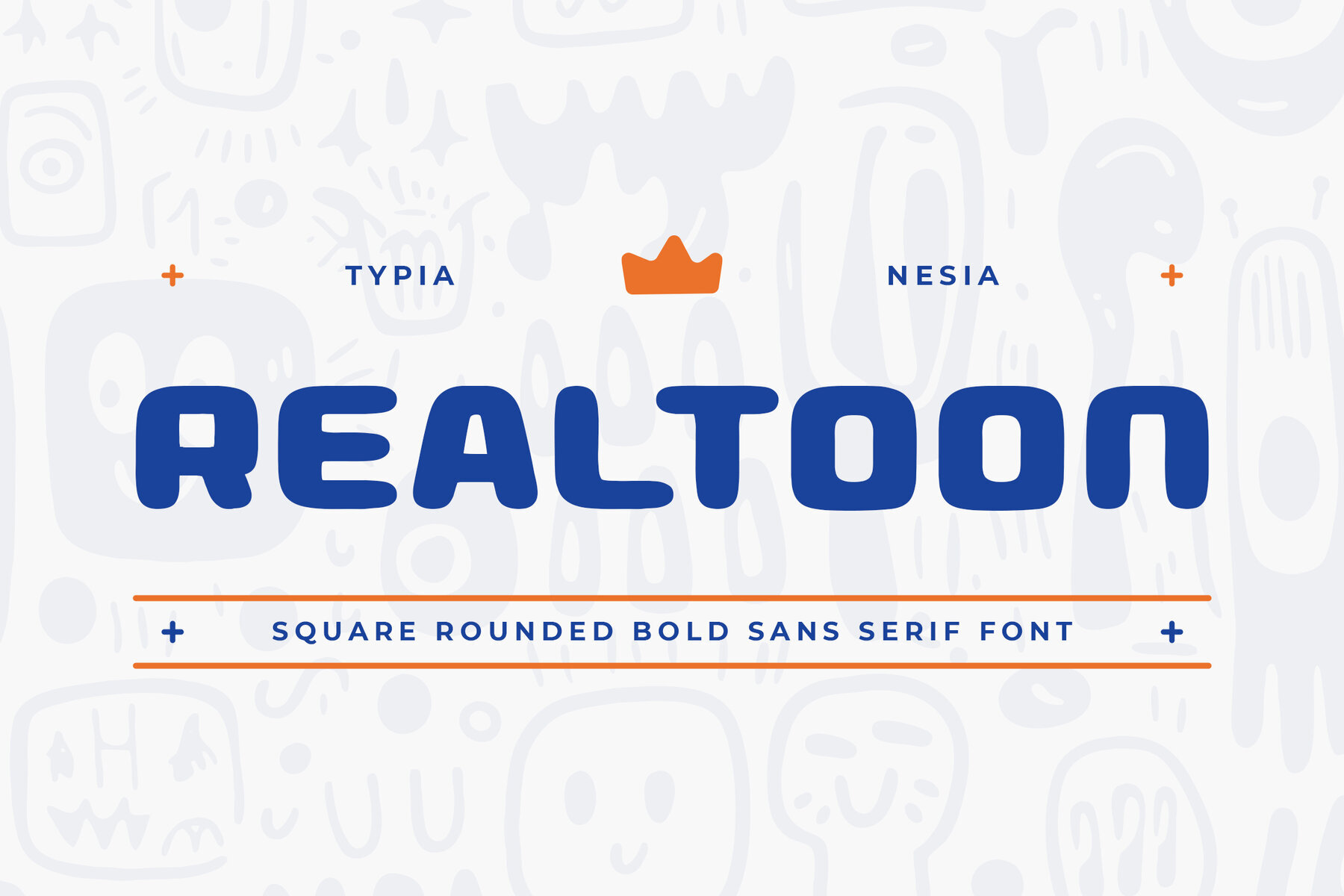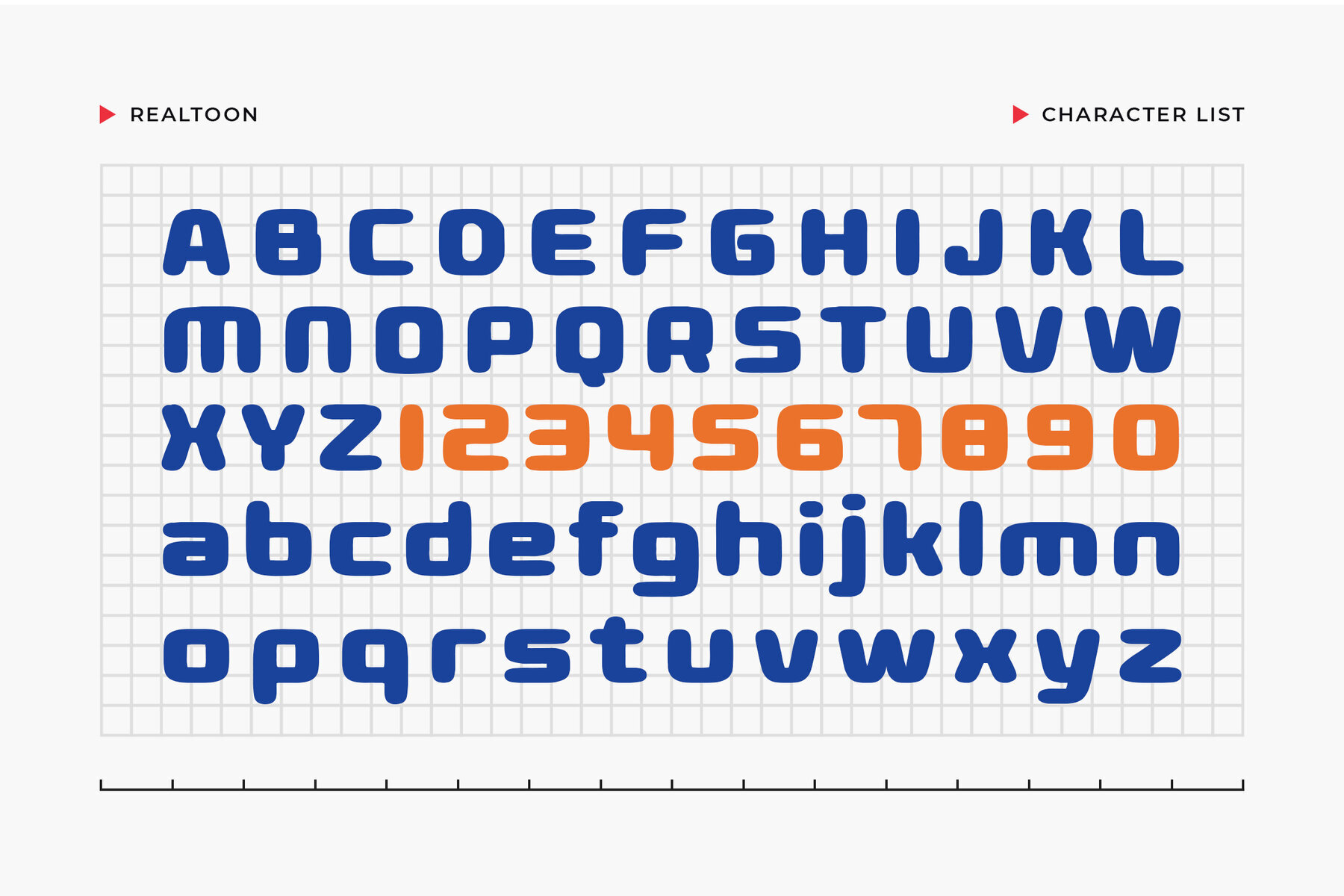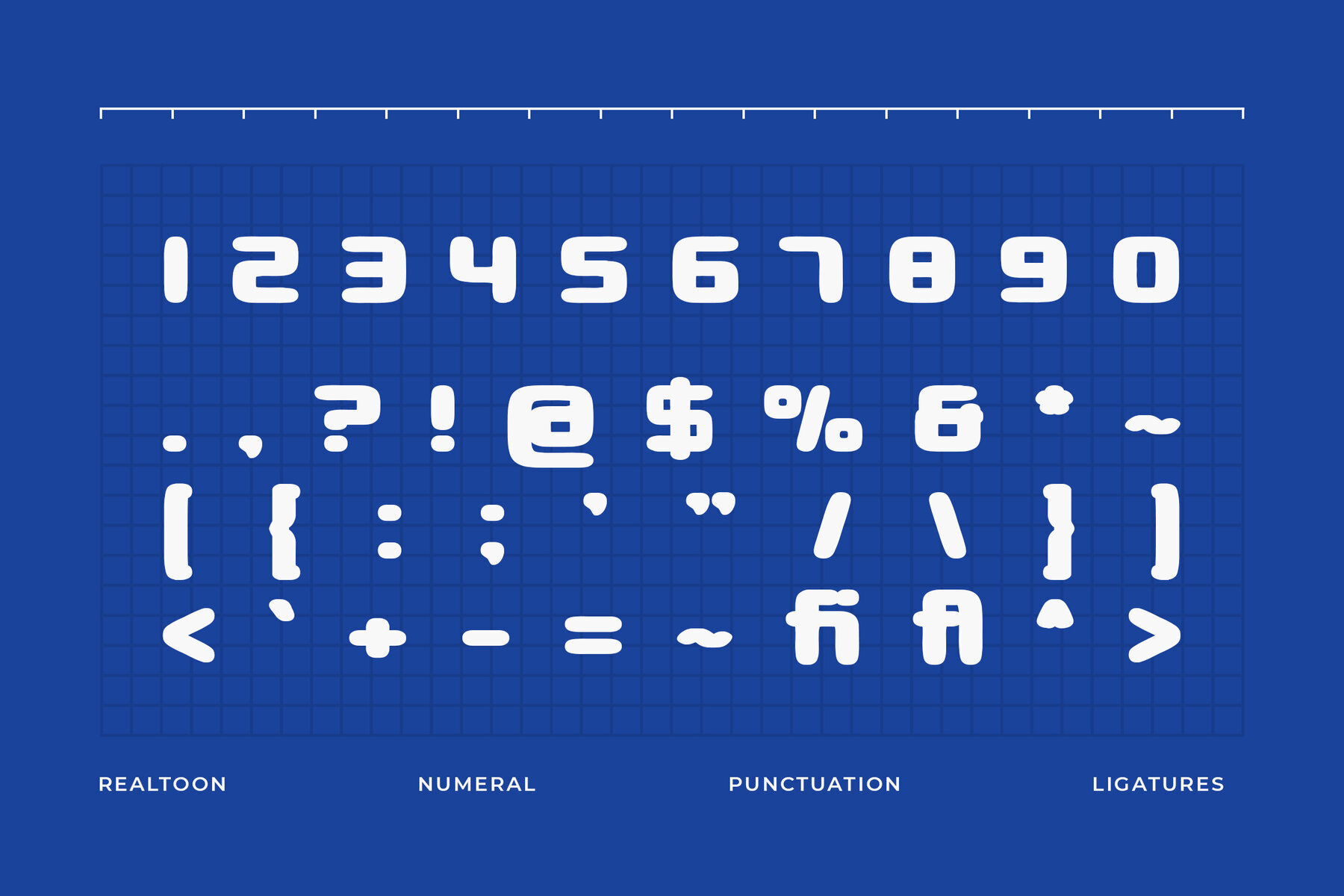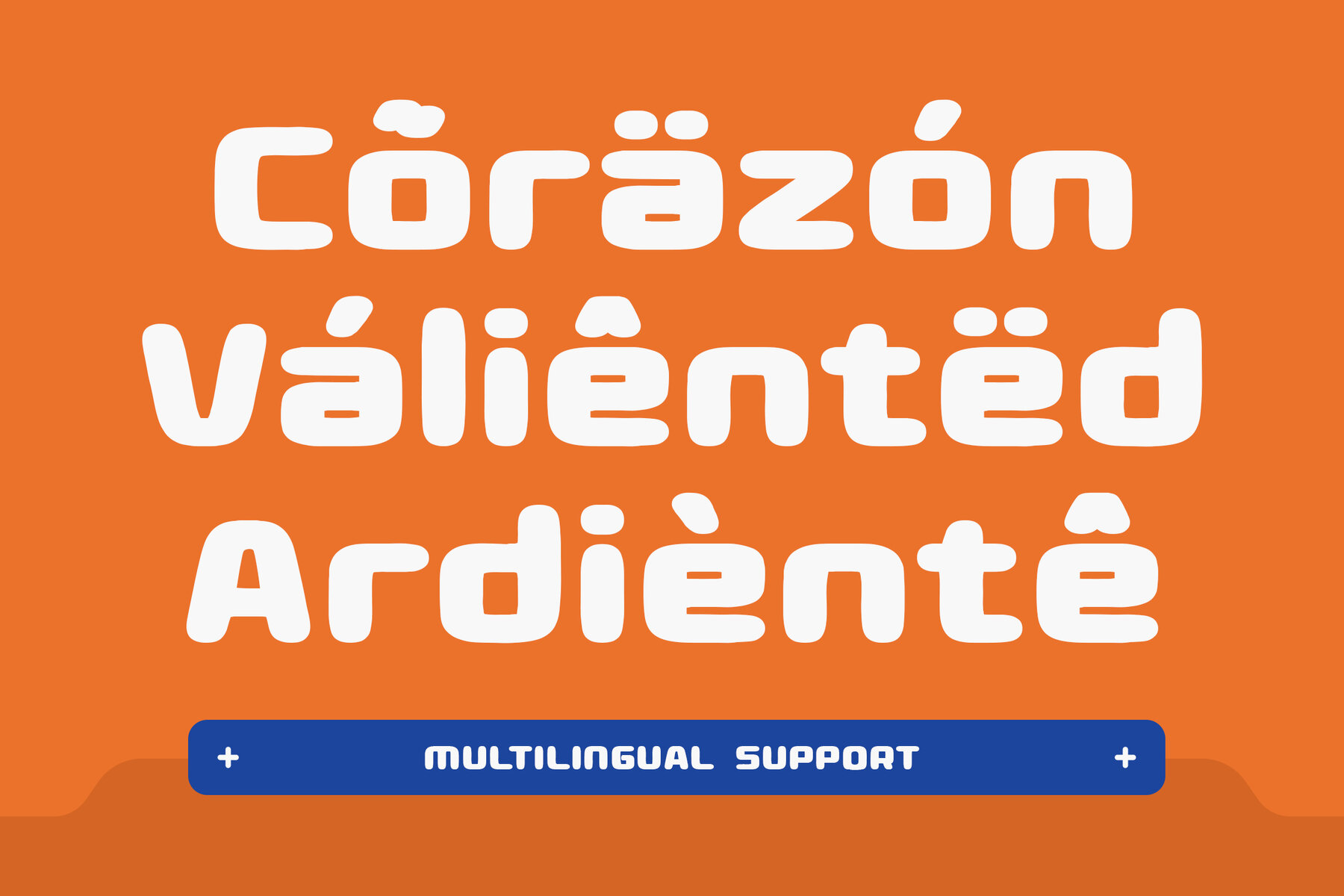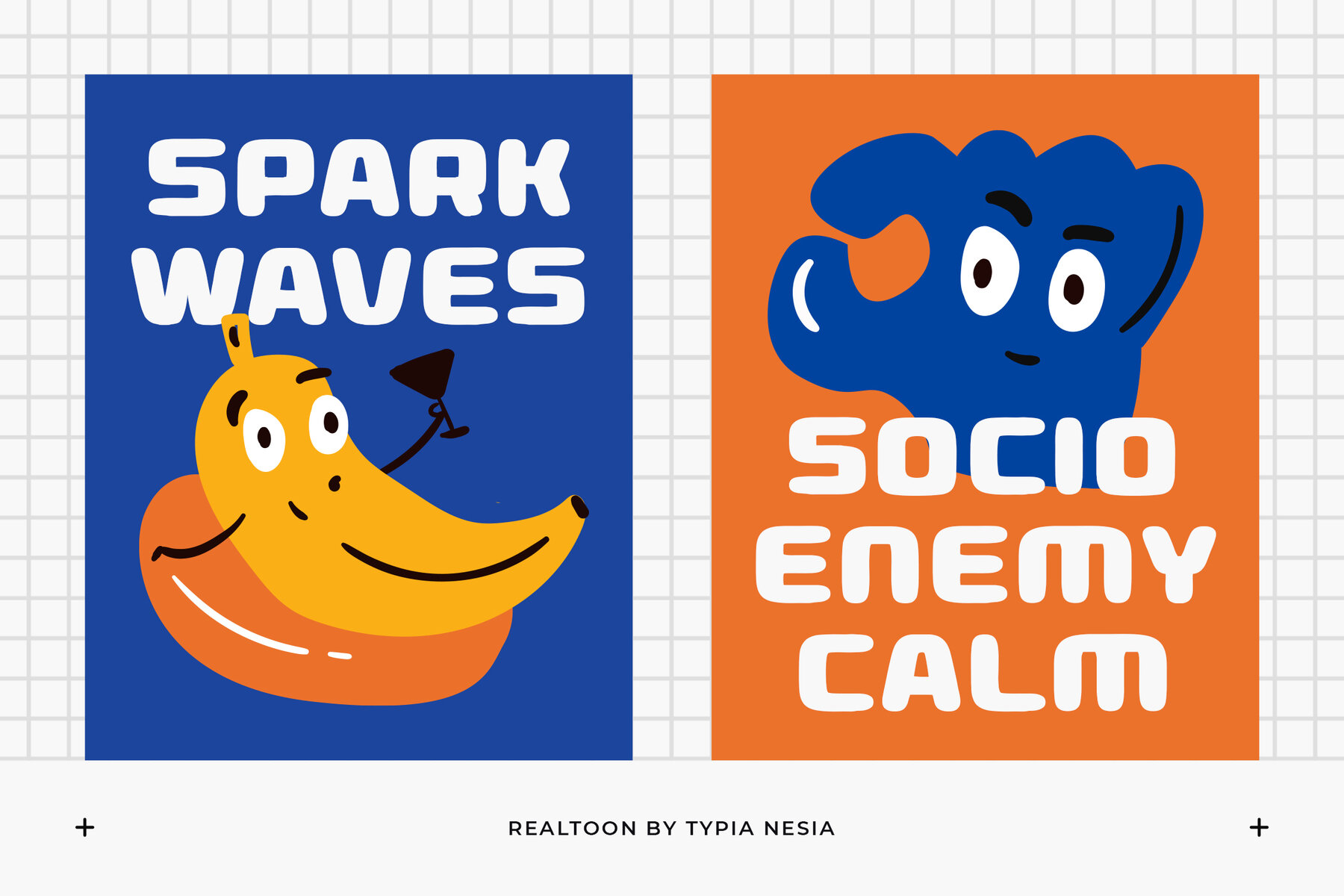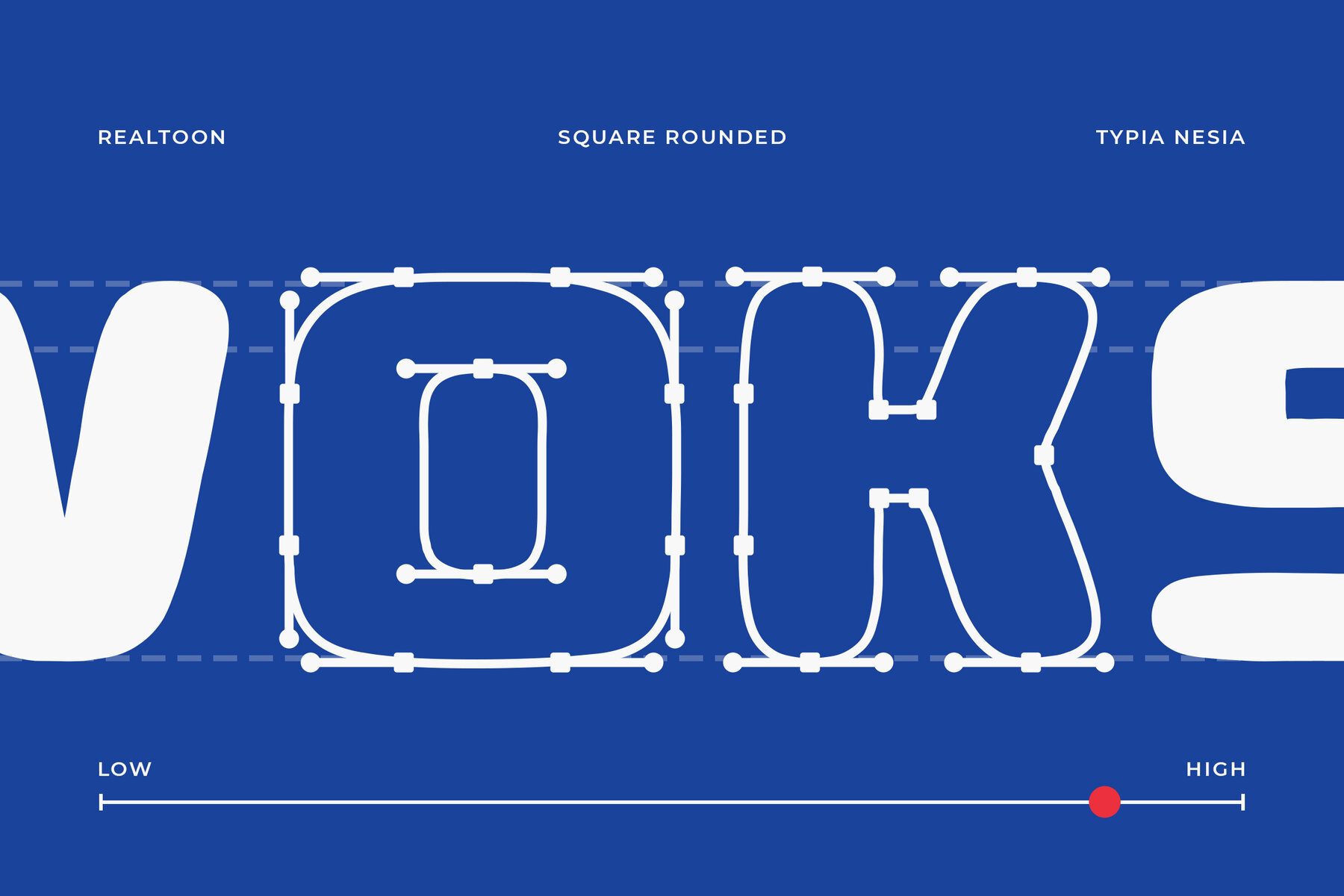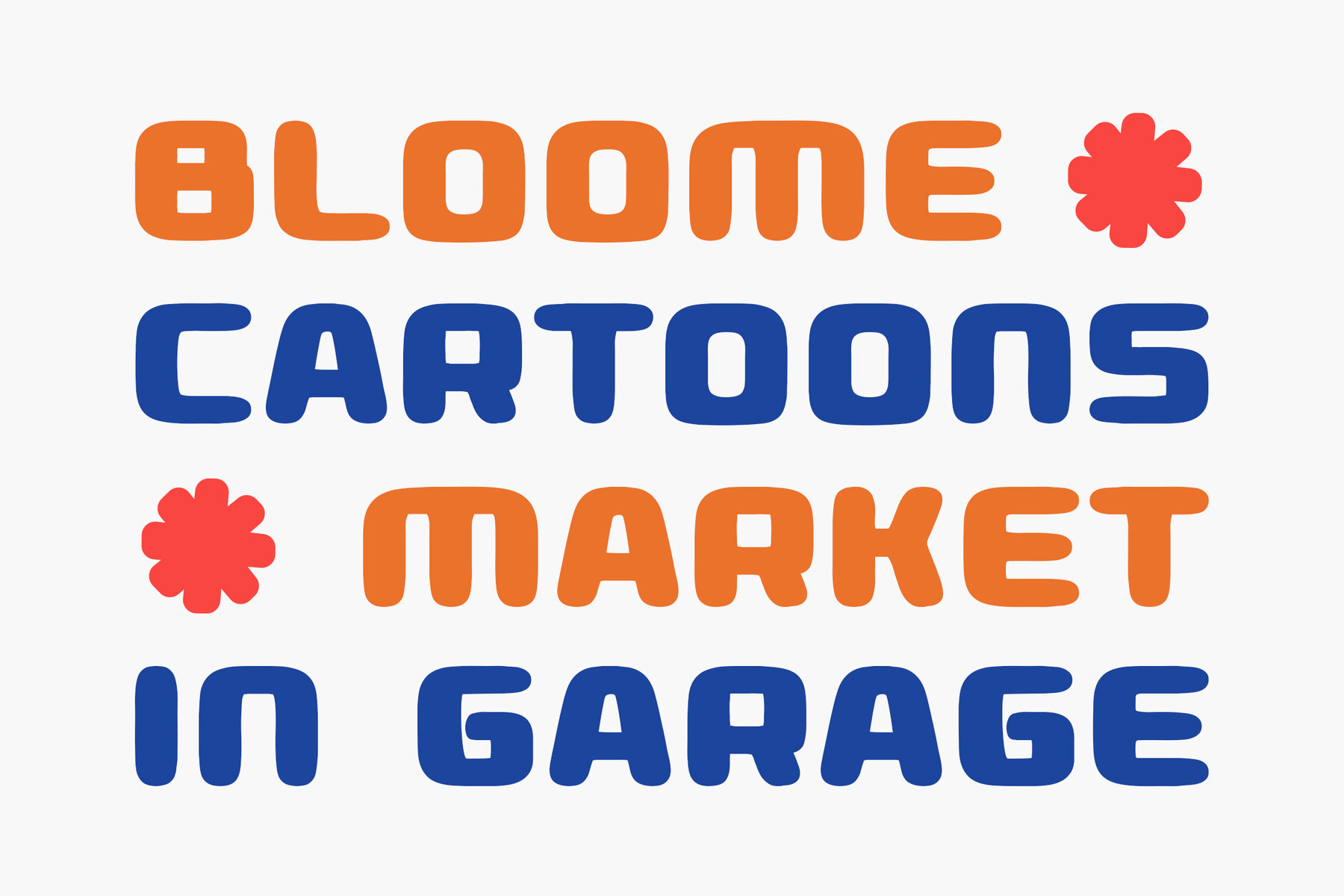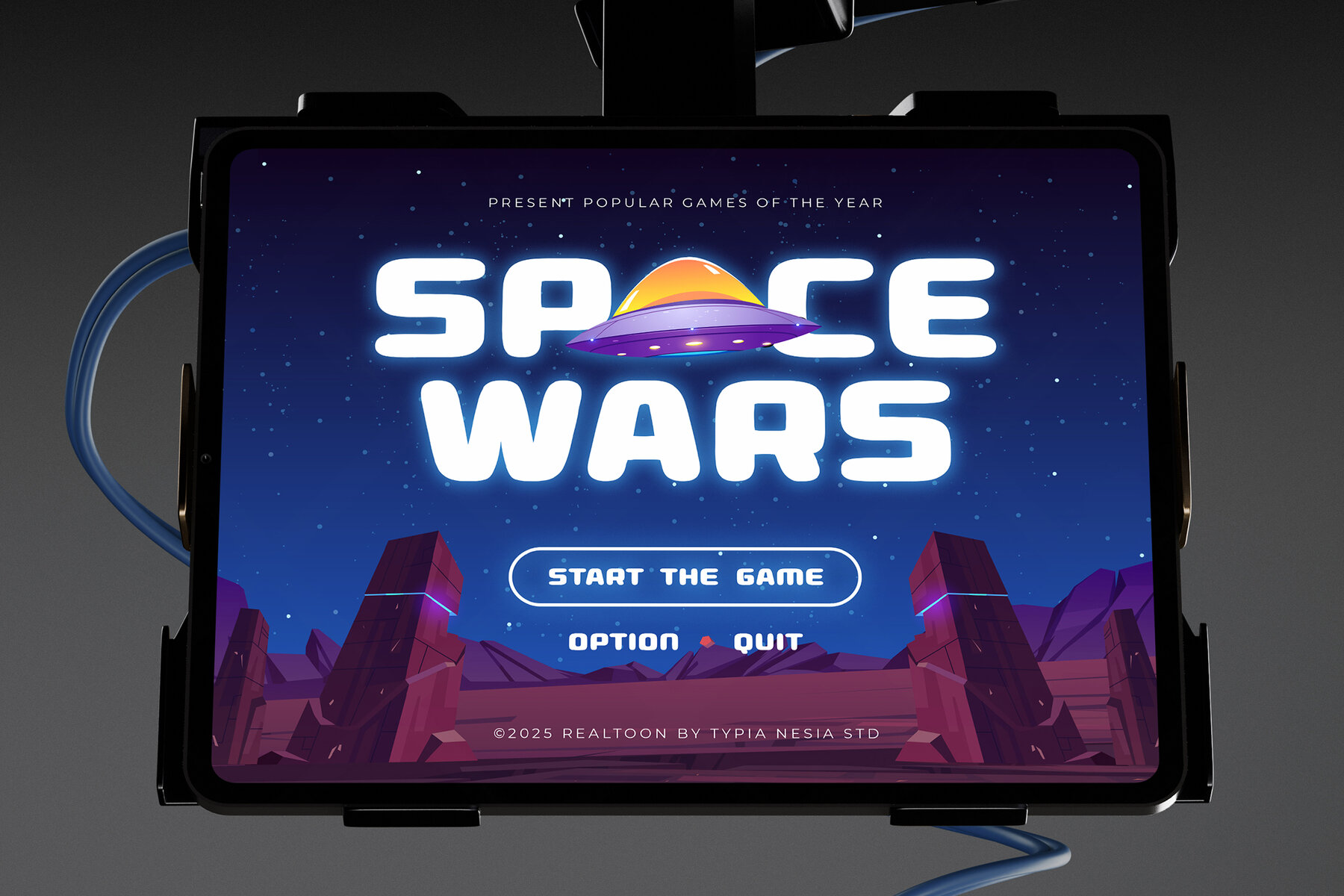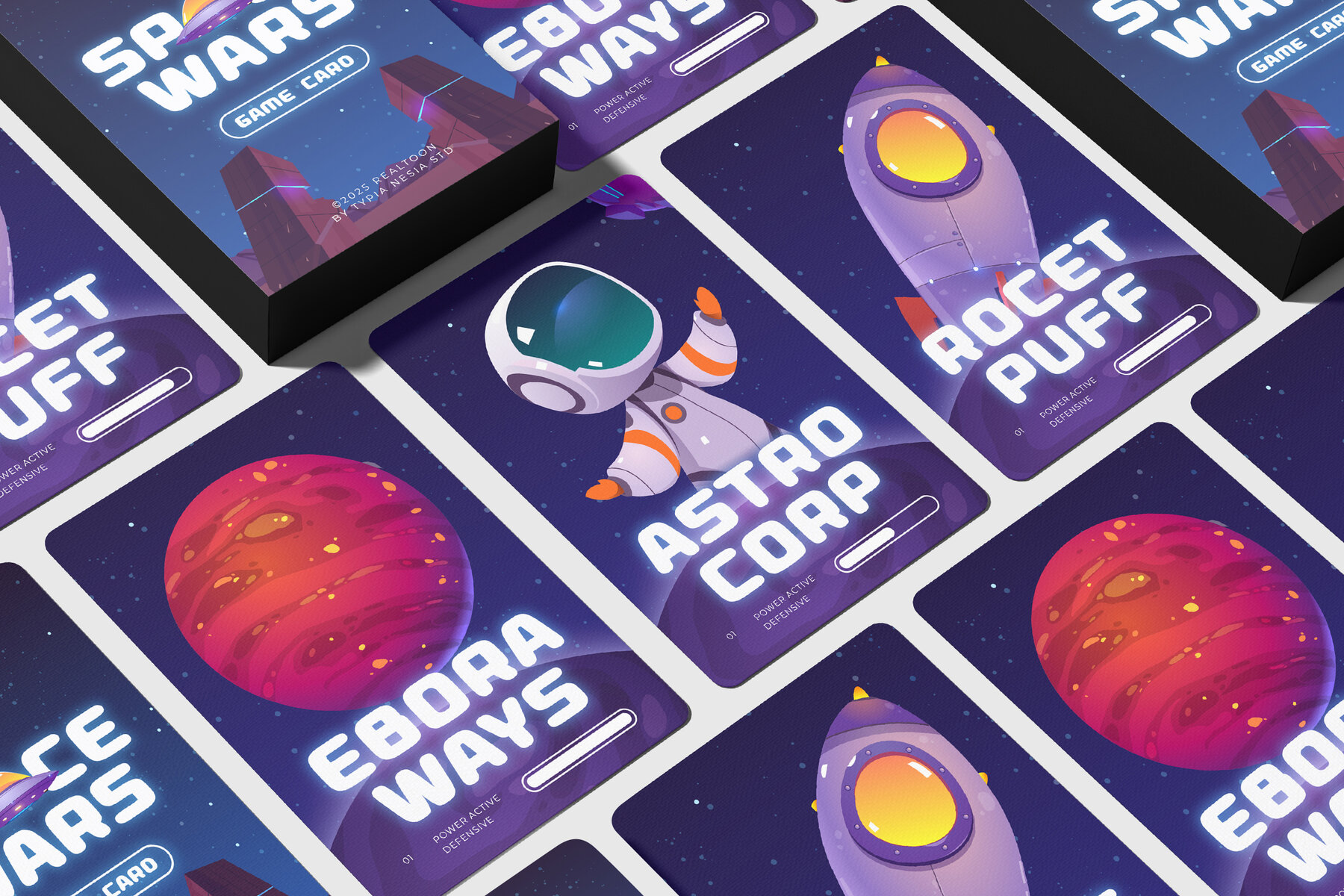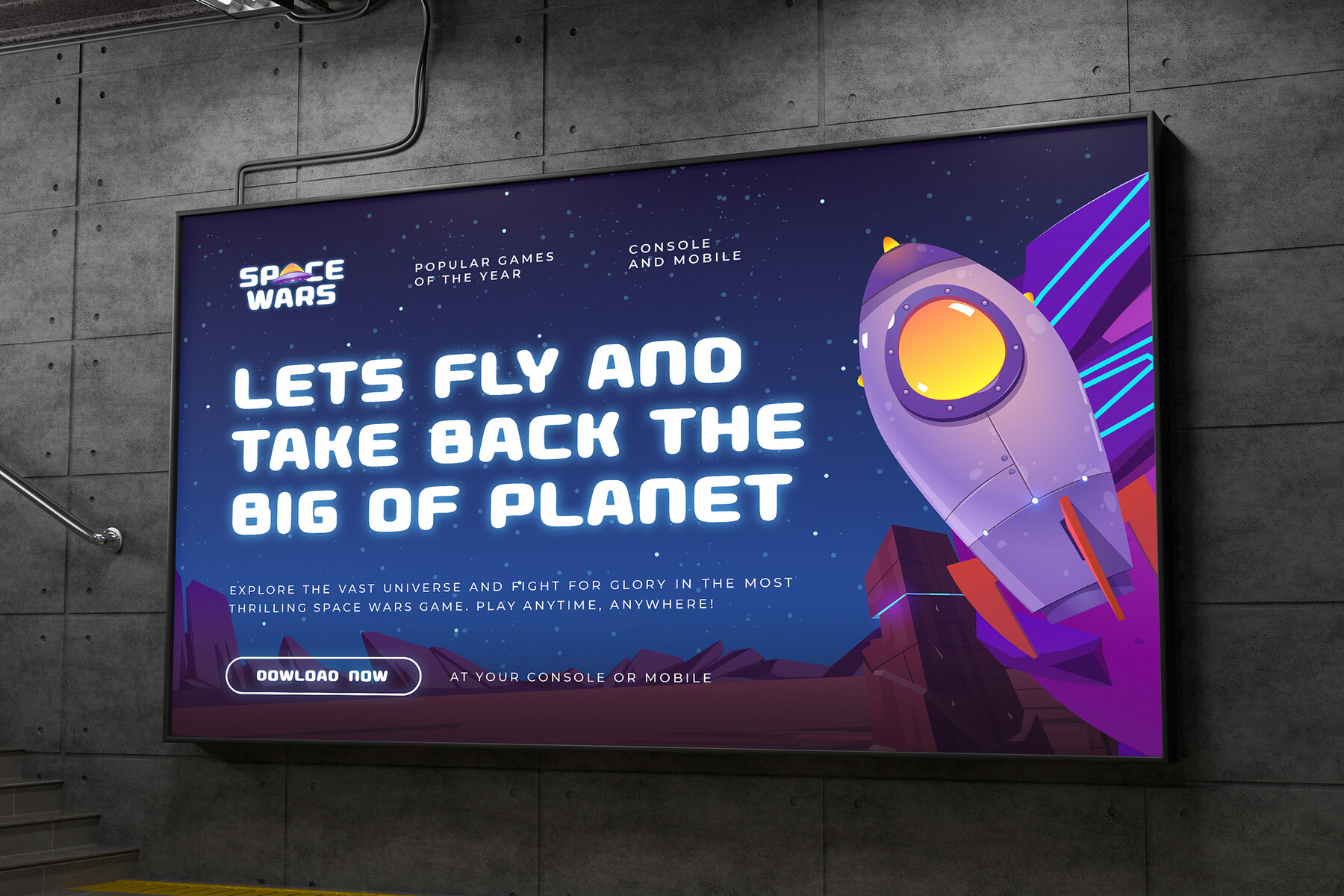
Realtoon Font
Realtoon Regular
Realtoon is a square, bold sans serif font that combines playful energy with modern design. Its bold geometric shapes and cartoon-inspired style make it ideal for creating vibrant and engaging visuals. Perfect for a range of applications, Realtoon shines in cartoon titles, game interfaces, playful branding, children's books, posters, packaging, social media content, logos, and advertising campaigns.
Offering a full set of uppercase and lowercase letters, punctuation, numerals, along with an array of ligatures and alternates, Realtoon provides extensive creative flexibility. Its multilingual support ensures that designs can reach a global audience, making it suitable for international projects. Designed for creatives looking to infuse fun and modernity into their work, Realtoon is the perfect choice for bold and imaginative designs.